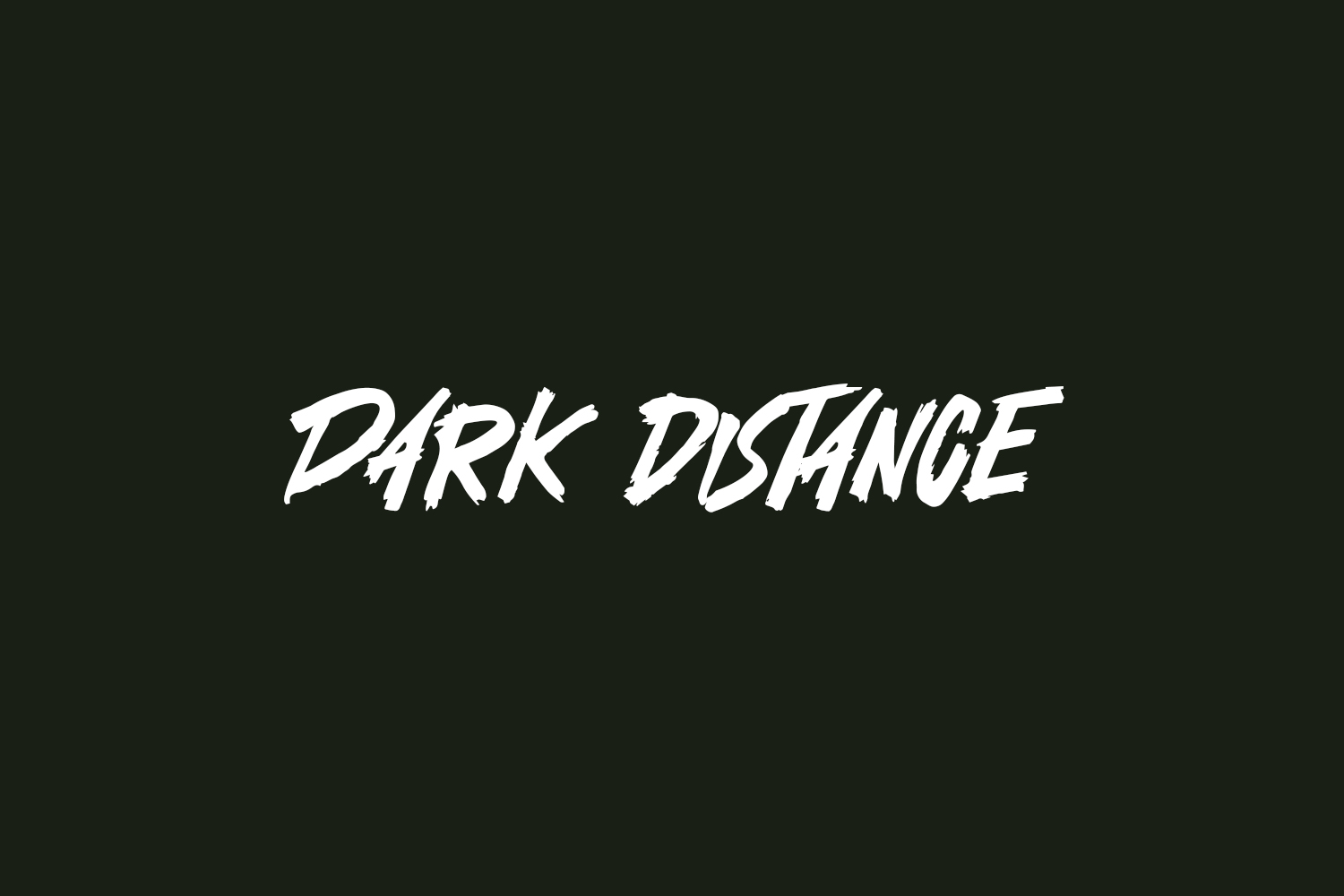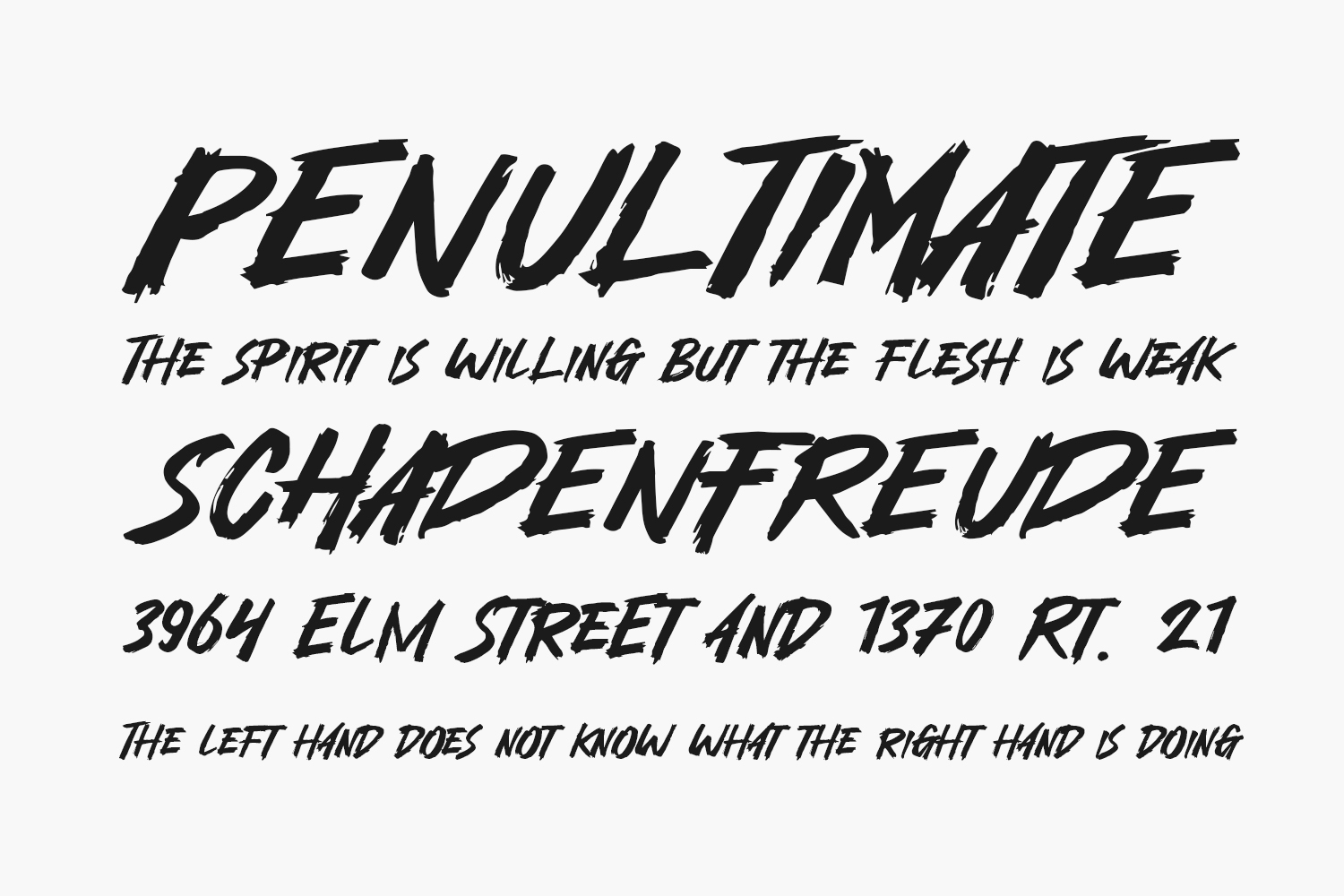
Introducing Dark Distance Free Font – a distinctive and captivating display font that exudes its own allure. Surprisingly versatile, this font effortlessly complements a myriad of contexts, enhancing the visual appeal across various designs. With its eerie charm, “The Dark Distance” is a perfect choice for projects revolving around horror and Halloween themes. Incorporate it into your creative endeavors, and witness how it elevates your concepts to stand out remarkably. Dark Distance Free Font is free for personal use only. Please purchase the full version for commercial use.